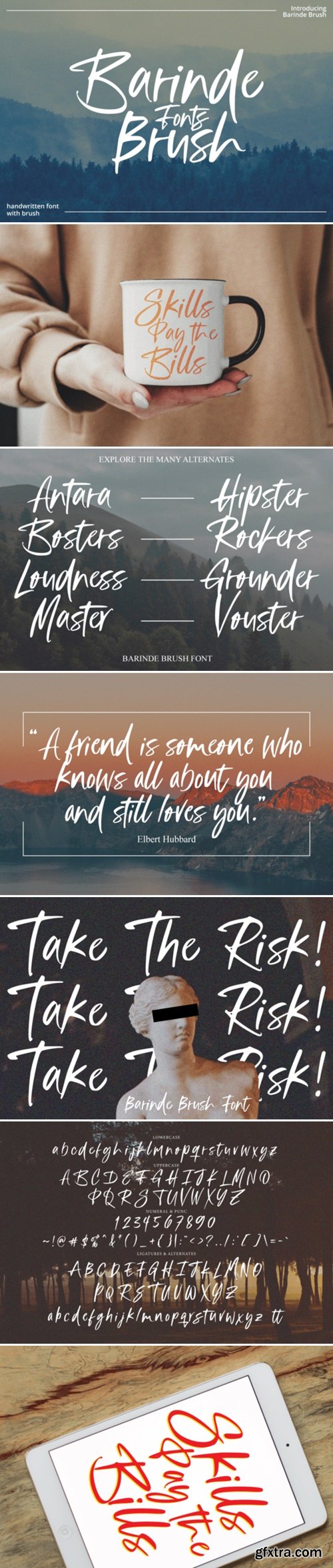
Barinde Brush Font
Barinde Brush is a typeface with personality. You can use it as a logo, badge, insignia, packaging, headline, poster, etc The alternative characters in this font were divided into several OpenType features such as Stylistic Alternates, Stylistic Sets, and Ligature.